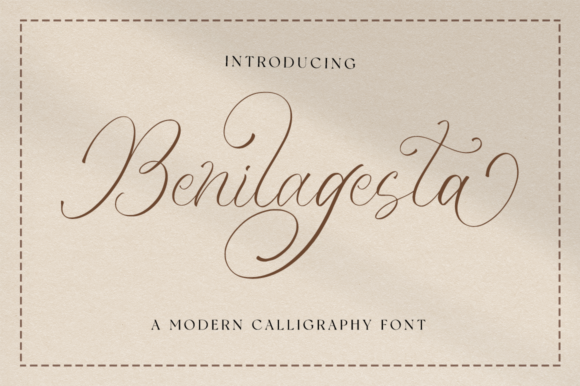
Discover the Magic of Benilagesta Font
As designers, we’ve all been there – staring at a blank page, struggling to find the perfect font to bring our creative vision to life. It’s that moment of frustration and excitement when you stumble upon a font that makes everything click. For me, it was the moment I laid eyes on the Benilagesta Font.
This beautiful and delicate handwritten font has a unique feel and stunning impact that will add a luxury spark to any design project. With its PUA encoded feature, accessing all the amazing glyphs and ligatures is a breeze, making it a valuable addition to any designer’s toolkit. Whether you’re working on a wedding invitation, a luxury brand’s logo, or a romantic novel, the Benilagesta Font is sure to elevate your design to new heights.
- Unique Characteristics: Features a unique blend of traditional and modern design elements, making it suitable for a variety of applications, including editorial, advertising, and packaging
Benilagesta Font Review
Overall, I’d say the Benilagesta font is a solid addition to any designer’s toolkit. ✨ Its unique blend of modern and vintage elements makes it perfect for creating eye-catching designs that stand out from the crowd.
The font’s versatility is one of its strongest points. ✨ It can be used for a wide range of applications, from logotypes and titles to body text and even digital interfaces. Its clean lines and elegant curves make it easy on the eyes, and its bold weights add a touch of sophistication.
- Unique blend of modern and vintage elements
- Versatile and suitable for various design applications
- Easy on the eyes with clean lines and elegant curves
- Bold weights add a touch of sophistication
However, the Benilagesta font isn’t without its limitations. ⚠️ One of the main concerns is its relatively small character set, which may limit its use for languages that require a wide range of characters.
Another potential issue is the font’s reliance on bold weights to create visual interest. While this can be effective in some cases, it can also lead to a lack of subtlety in more complex designs.
Despite its limitations, the Benilagesta font is a great choice for designers looking for a unique and versatile font. With its elegant curves and bold weights, it’s perfect for creating eye-catching designs that make a statement.
Tips for Getting the Most Out of Benilagesta Font
Experiment with different font sizes and styles to create visual interest. Pair Benilagesta Font with other fonts to create a unique and eye-catching design. Use the font in bold or italic styles to add emphasis to your text.
Beneilagesta Font is ideal for use in headings, titles, and logos. It’s also suitable for use in branding materials, such as business cards and letterheads. The font’s unique style makes it a great choice for creating a memorable and distinctive brand identity.